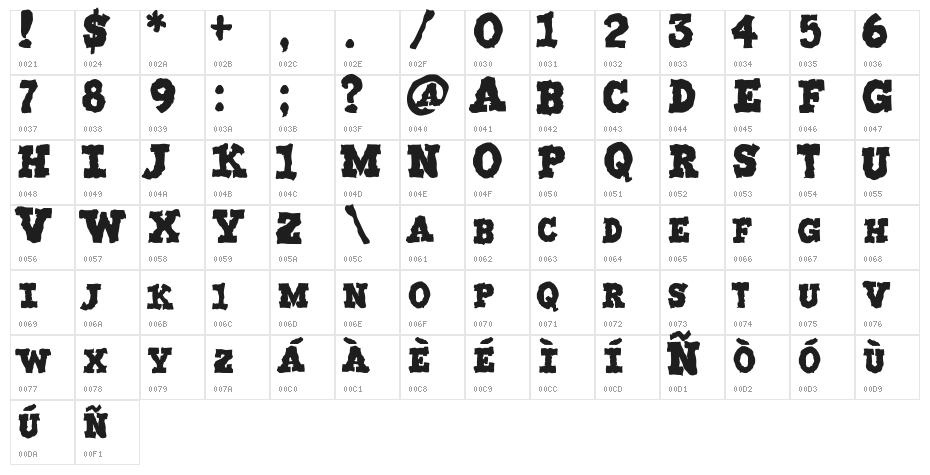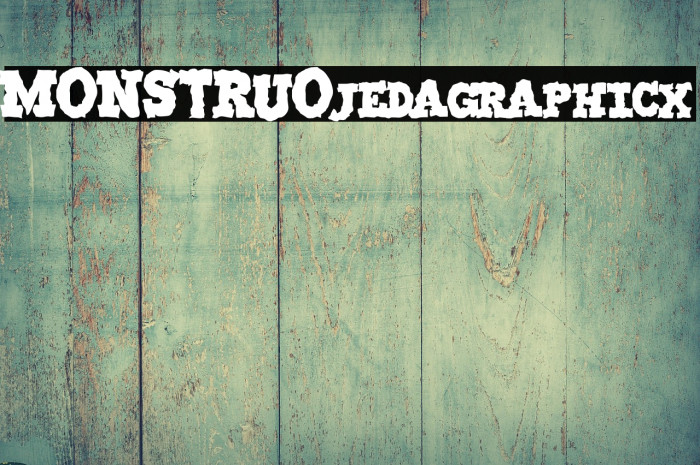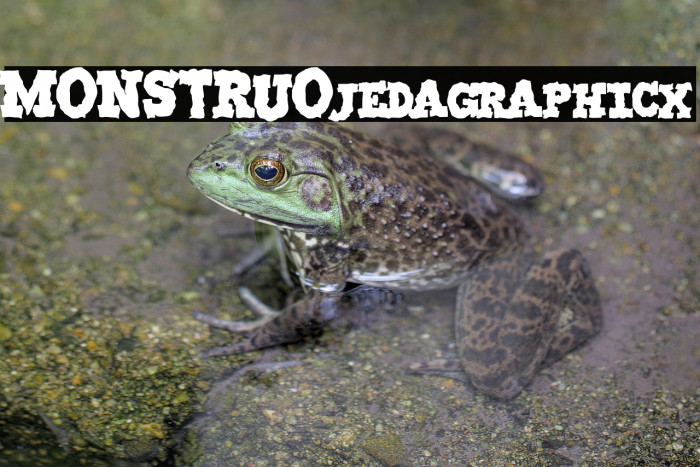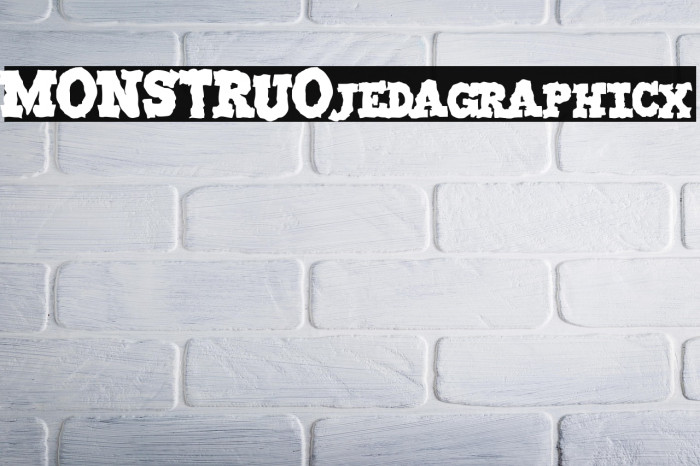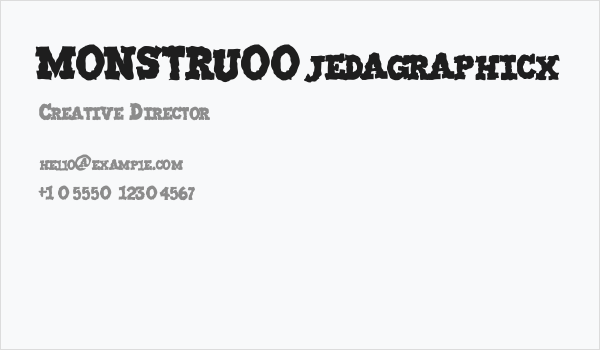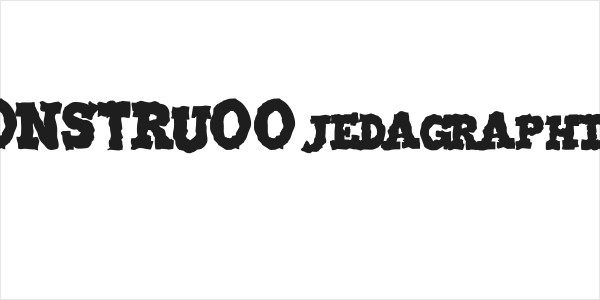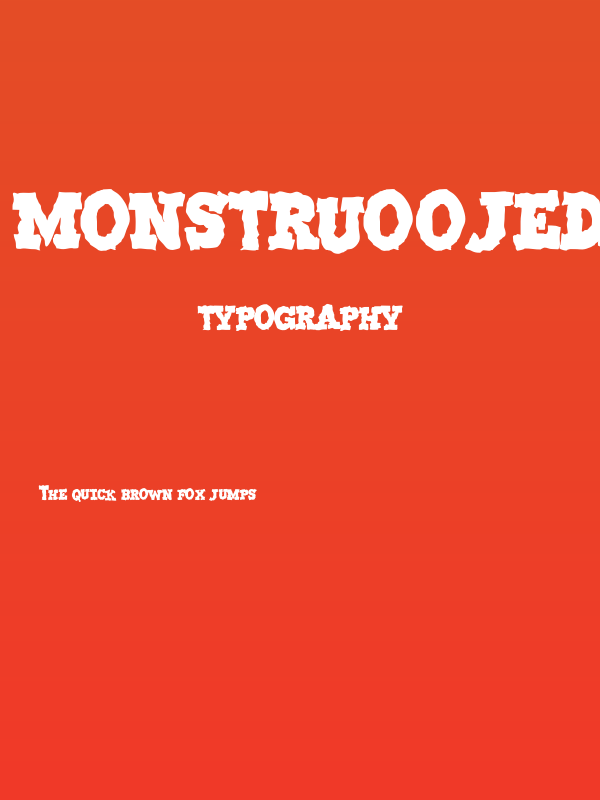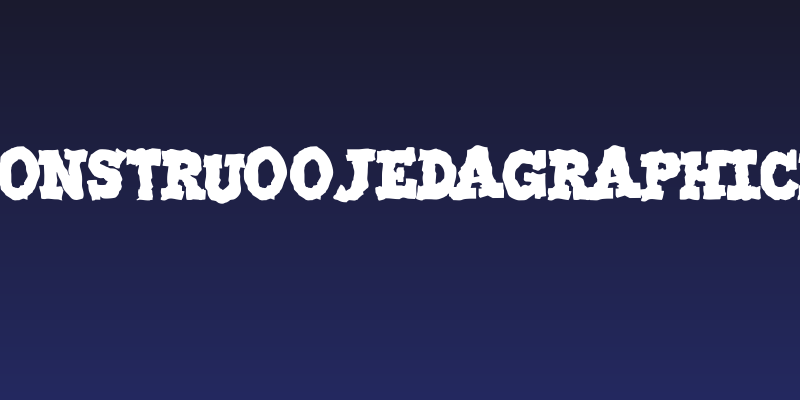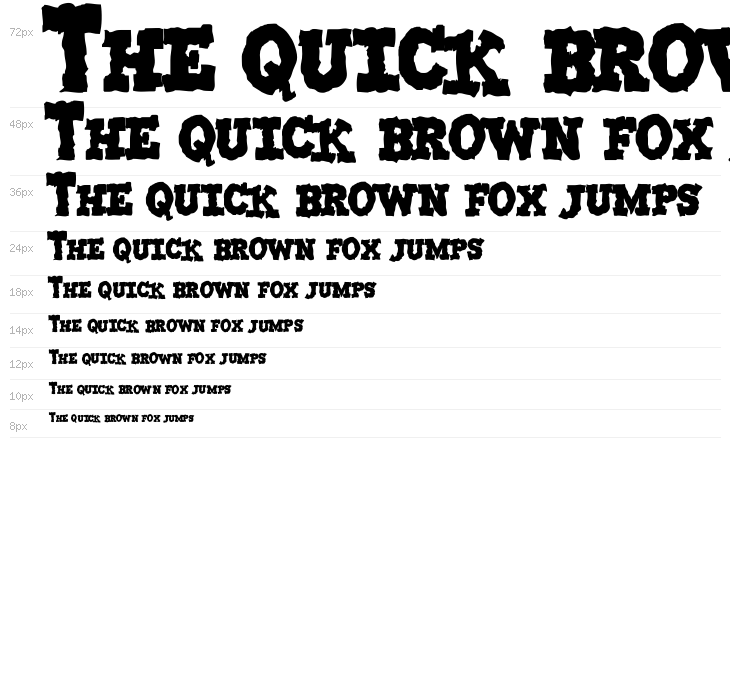
MONSTRUO-jedagraphicx Font
MONSTRUO-jedagraphicx Description
This font features a bold and rugged design with a distressed, textured appearance. The characters are heavily stylized, giving them a rough, almost hand-carved look. The uppercase and lowercase letters maintain a consistent style, with thick strokes and irregular edges that contribute to a chaotic yet artistic feel. The numbers and special characters follow the same design principles, ensuring uniformity across the font. This font is ideal for projects that require a strong, impactful visual presence, such as posters, album covers, or branding for edgy or alternative products.
| Proposed Projects | Posters, album covers, edgy branding, alternative product packaging. |